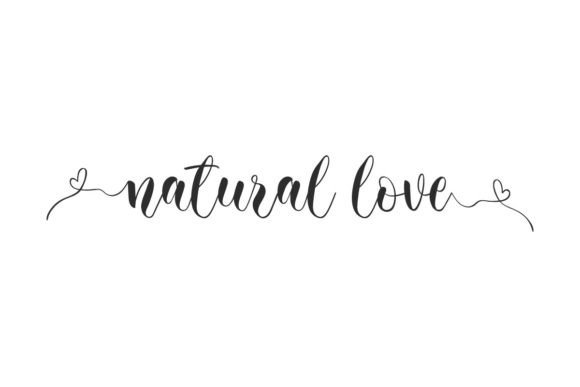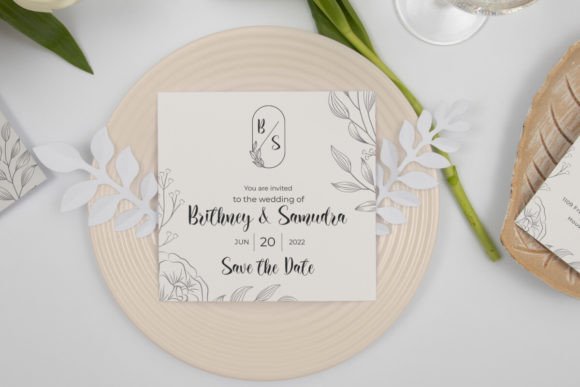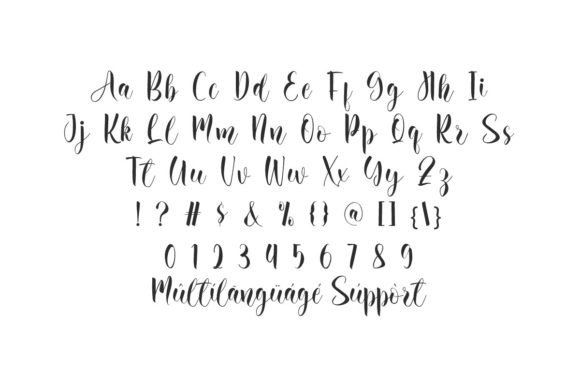
Introduction to Natural Love Font
Natural Love is an exquisite handwritten font, masterfully designed to become a true favorite.
Key Features of Natural Love Font
Why Choose Natural Love Font?
Natural Love Font offers exceptional quality and versatility, making it a valuable addition to your design toolkit. Whether you’re creating for personal projects or commercial use, Natural Love Font delivers professional results.